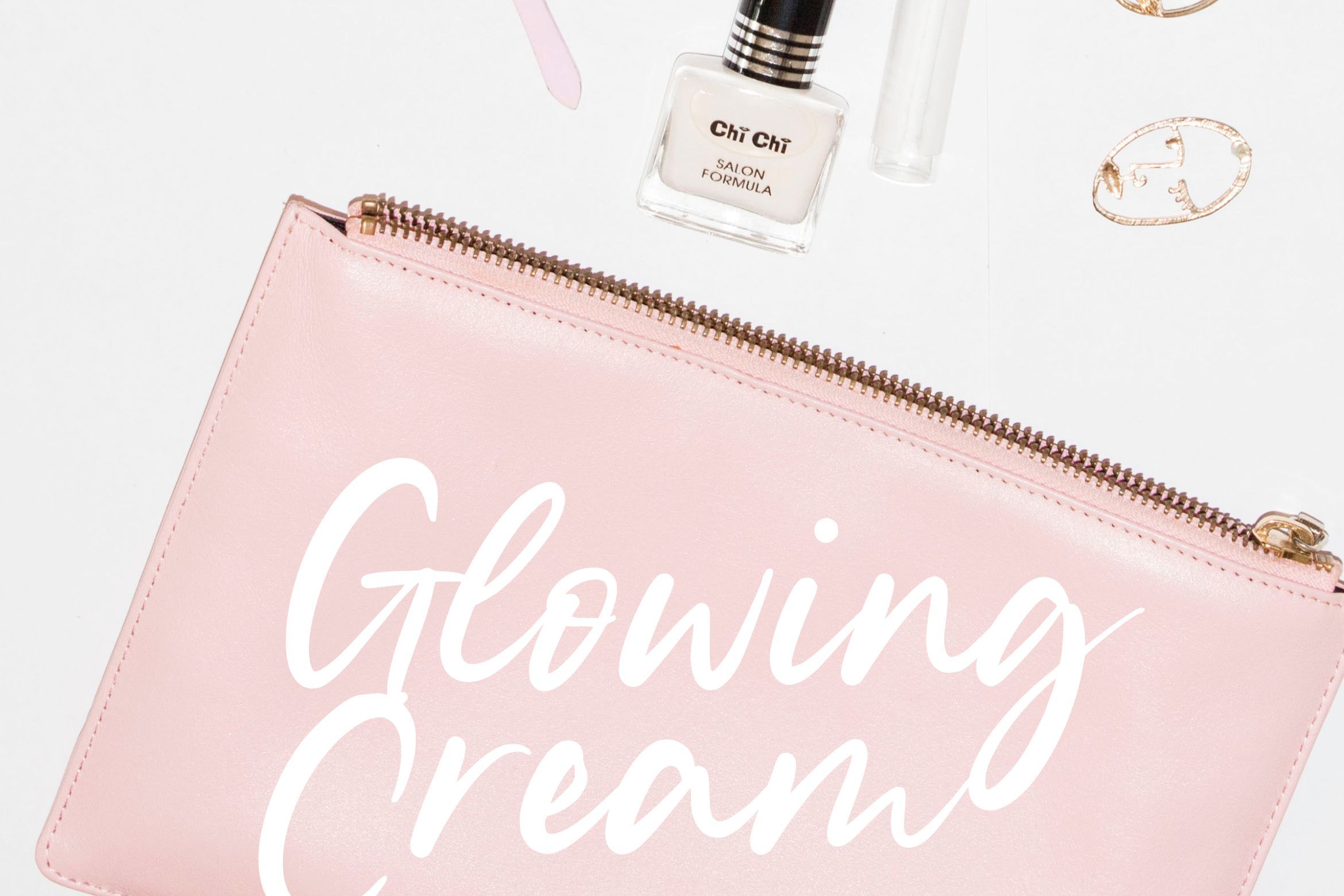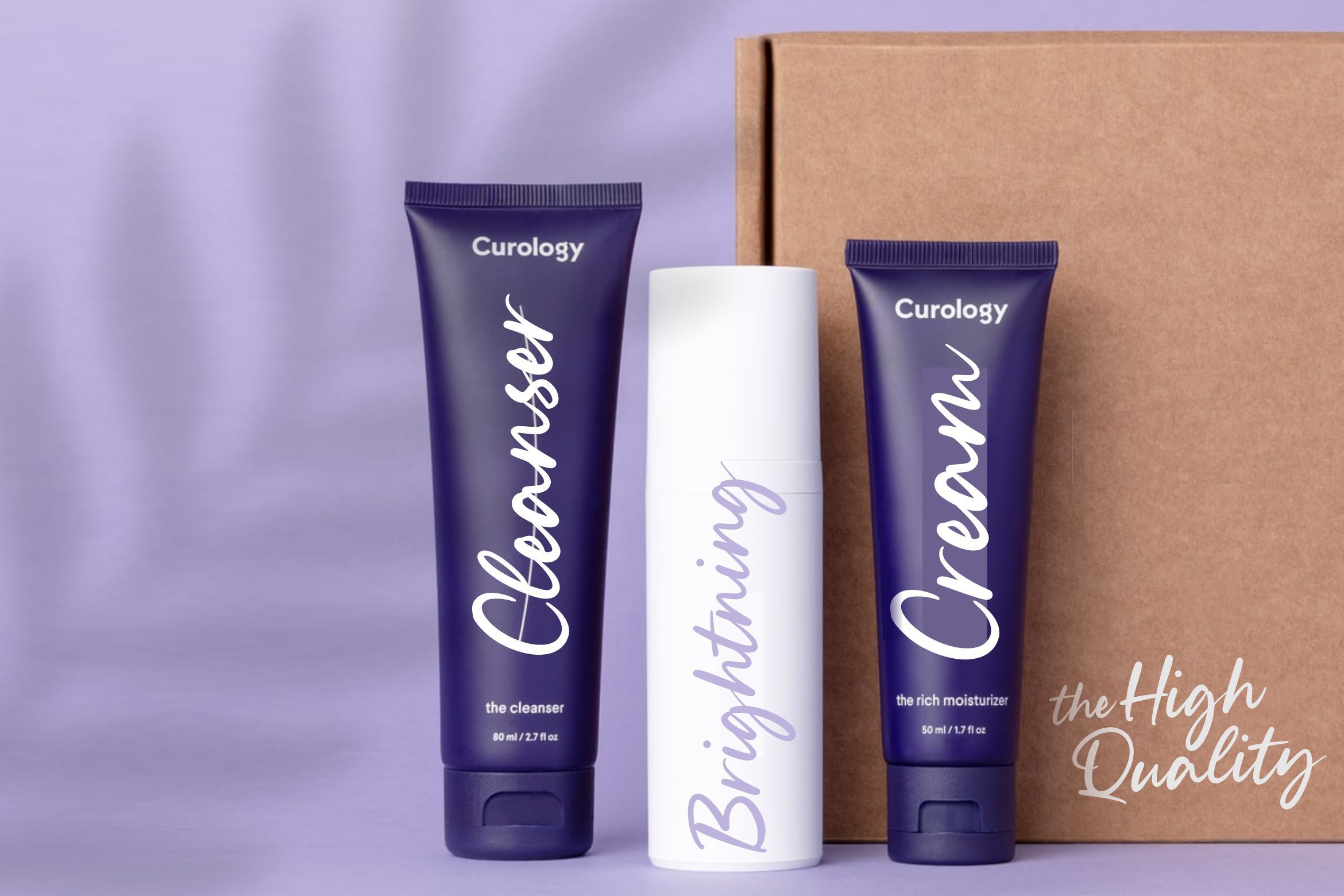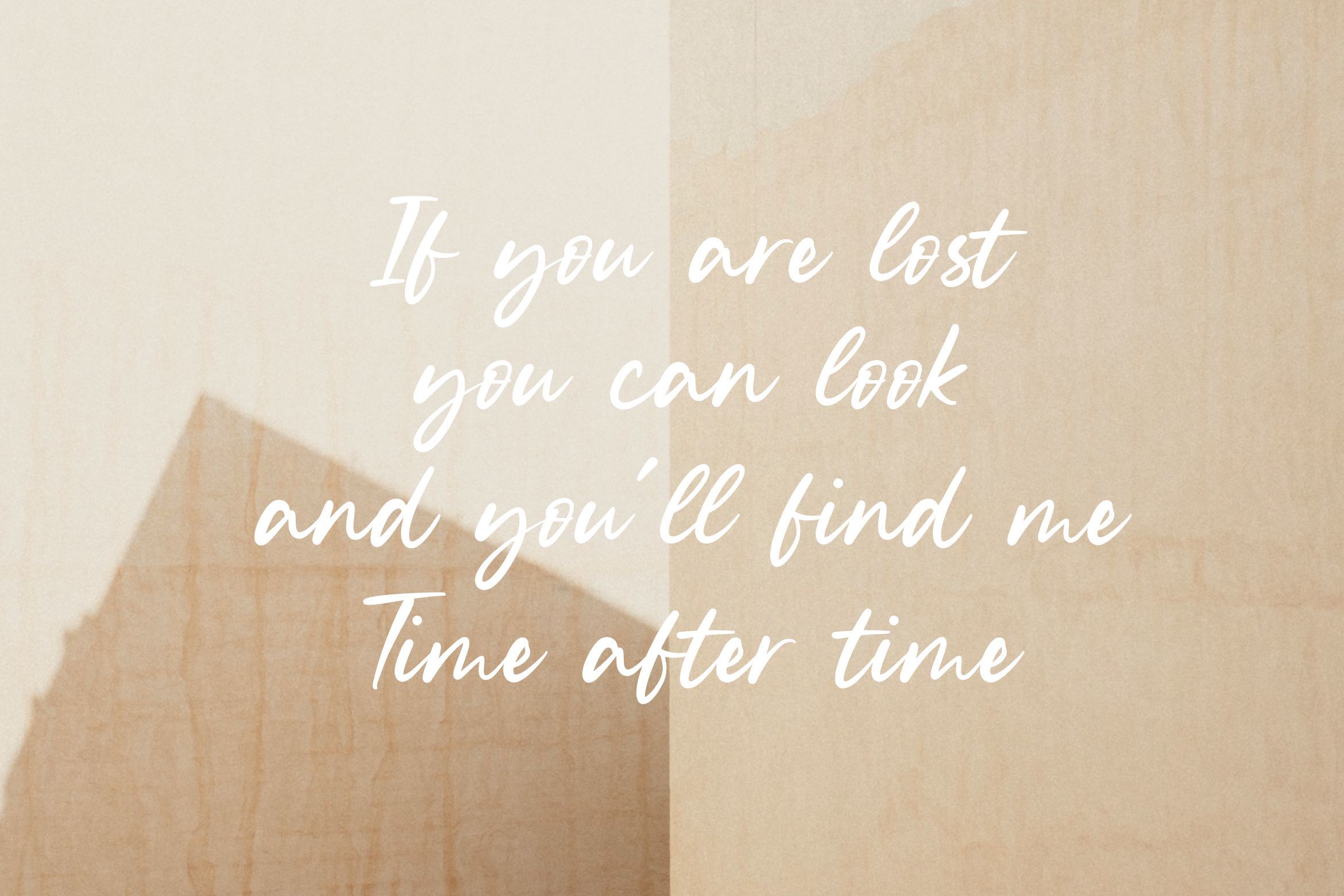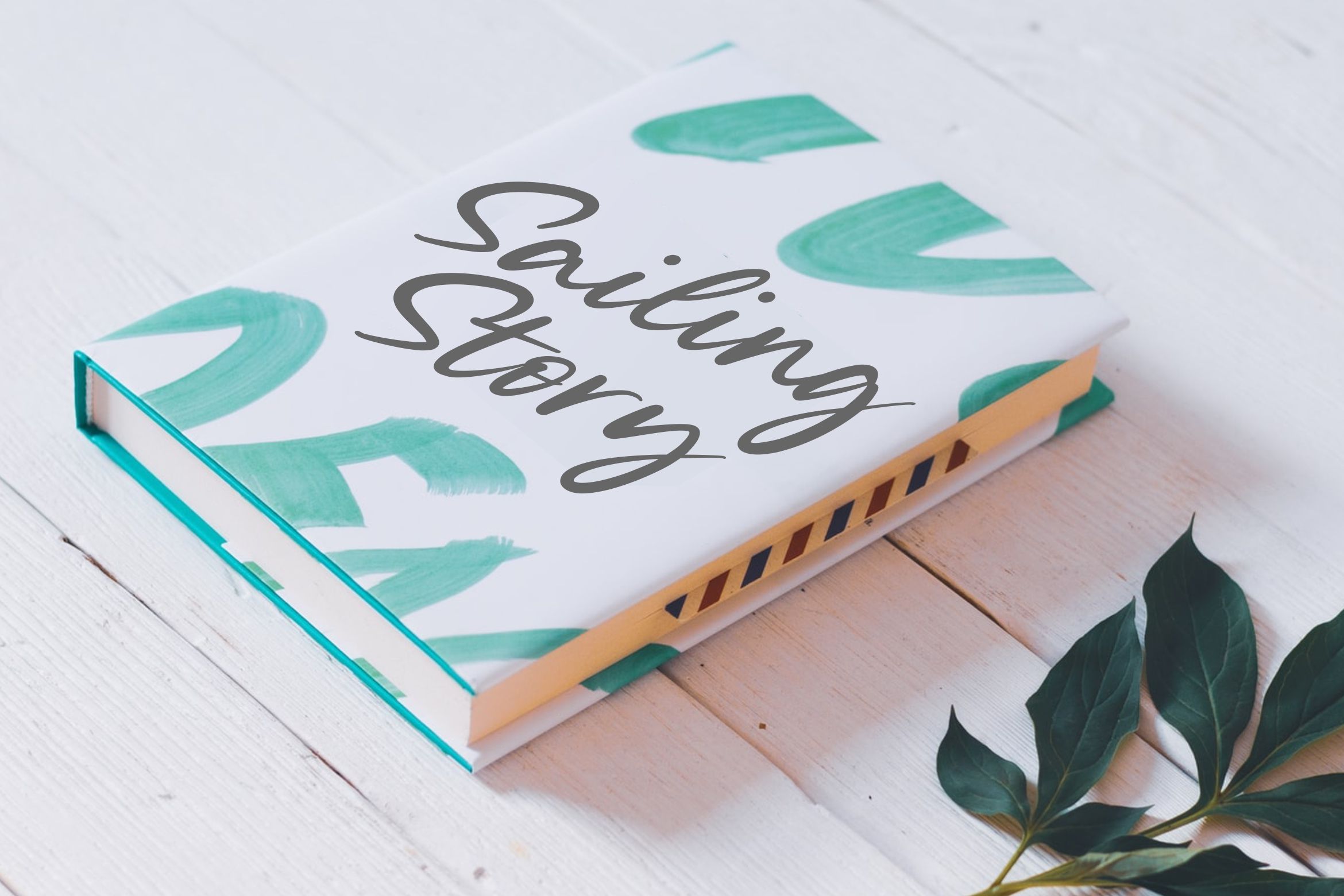
About Silent Landfield Modern Calligraphy Font
Introducing by Letterative Studio : Silent Landfield Font Silent Landfield is a Modern Calligraphy Font Silent Landfield is a genuinely original and modern handwritten font. It has a casual style and it will enhance each of your favorite design ideas. This font includes : TTF and OTF Silent Landfield also multilingual support Enjoy the font! Feel free to comment or feedback Send me PM or email Thank you!